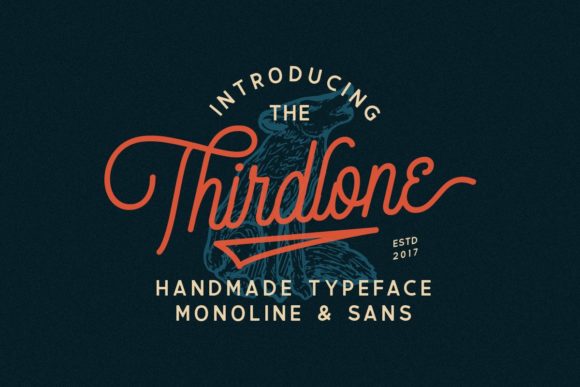
Behold, the Thirdlone Family Font, a display font family that captivates with its playful spirit and mesmerizing characters. Enter a world of delightful typography, where every letter dances with energy and imagination.
Crafted by the skilled hands of letterhend, Thirdlone Family Font exudes a unique charm that sets it apart. Its playful nature brings a touch of whimsy to your designs, while its elegant curves and distinctive lines add a touch of sophistication.
With its vibrant personality, Thirdlone Family Font is perfect for adding a splash of color and character to your creative projects. Whether you're designing logos, posters, social media graphics, or website headers, this font family is sure to make your words pop off the screen.
Dive into the Thirdlone Family Font's diverse collection of weights and styles, each with its own unique flavor. From the delicate Thin weight to the robust Black weight, you'll find the perfect font to match your vision. And with its extensive language support, you can reach a global audience with your captivating designs.
Step into the world of Thirdlone Family Font and let your creativity soar. Let its playful characters ignite your imagination and bring your designs to life. Whether you're a seasoned designer or just starting out, this font family is your passport to creating stunning visuals that leave a lasting impression.
Embrace the magic of Thirdlone Family Font today and embark on a typographic adventure like no other. Let your words dance, your designs shine, and your imagination flourish with this captivating and enchanting font family.